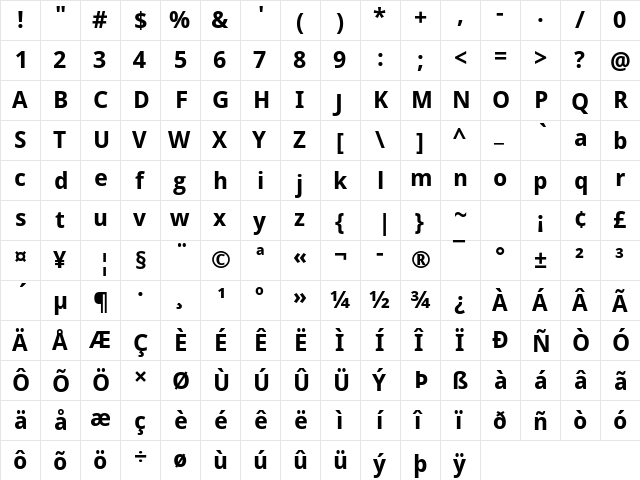
Droid Sans Bold
Design Context for Droid Sans Typeface
Droid Sans offers clean, dependable letterforms without strong stylistic allegiance, making it a practical choice for designers who need flexibility. The heavy weight commands attention and anchors typographic hierarchies.
Pro Tip: Use Droid Sans in both headline and body roles to test its range before committing to a single application.